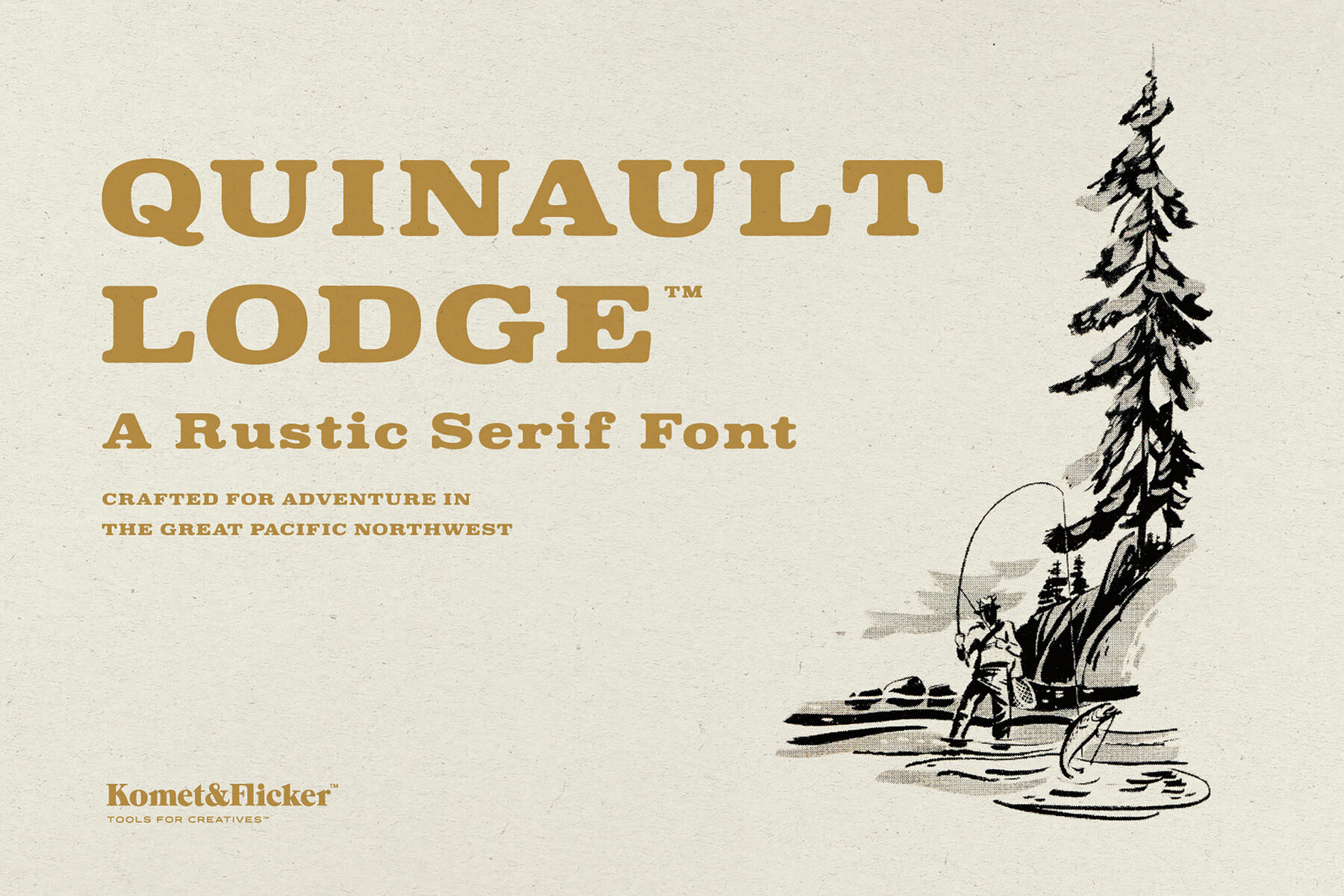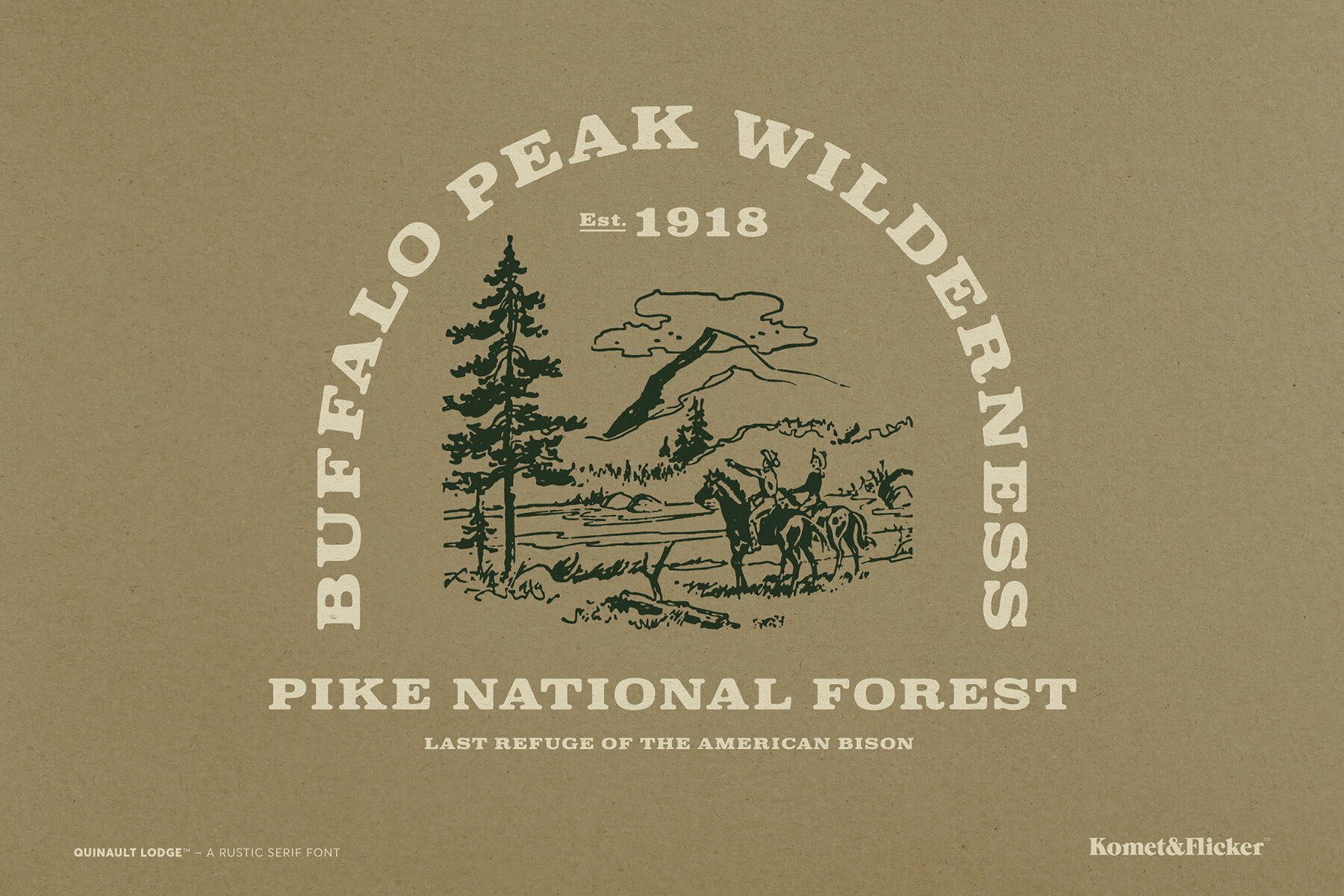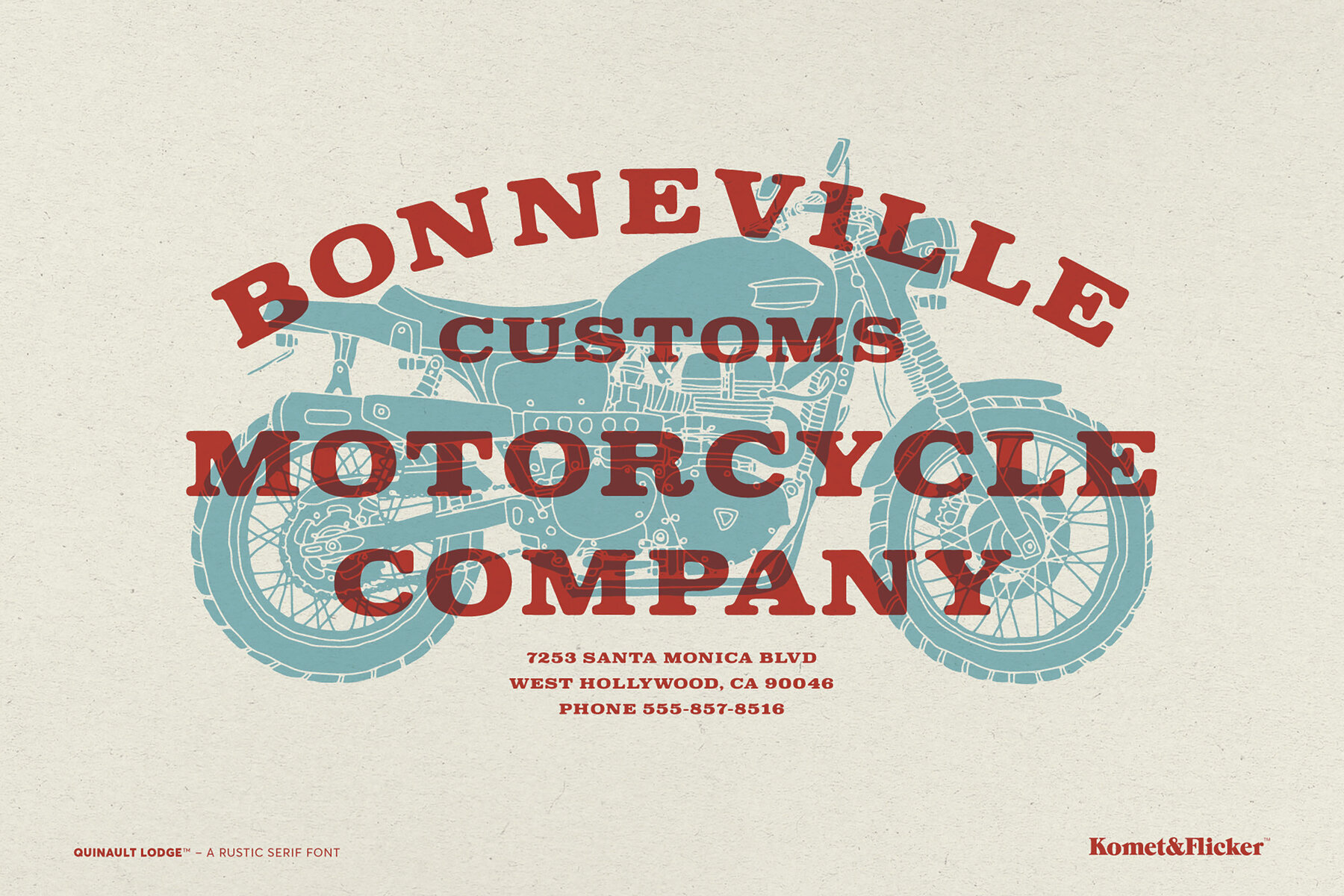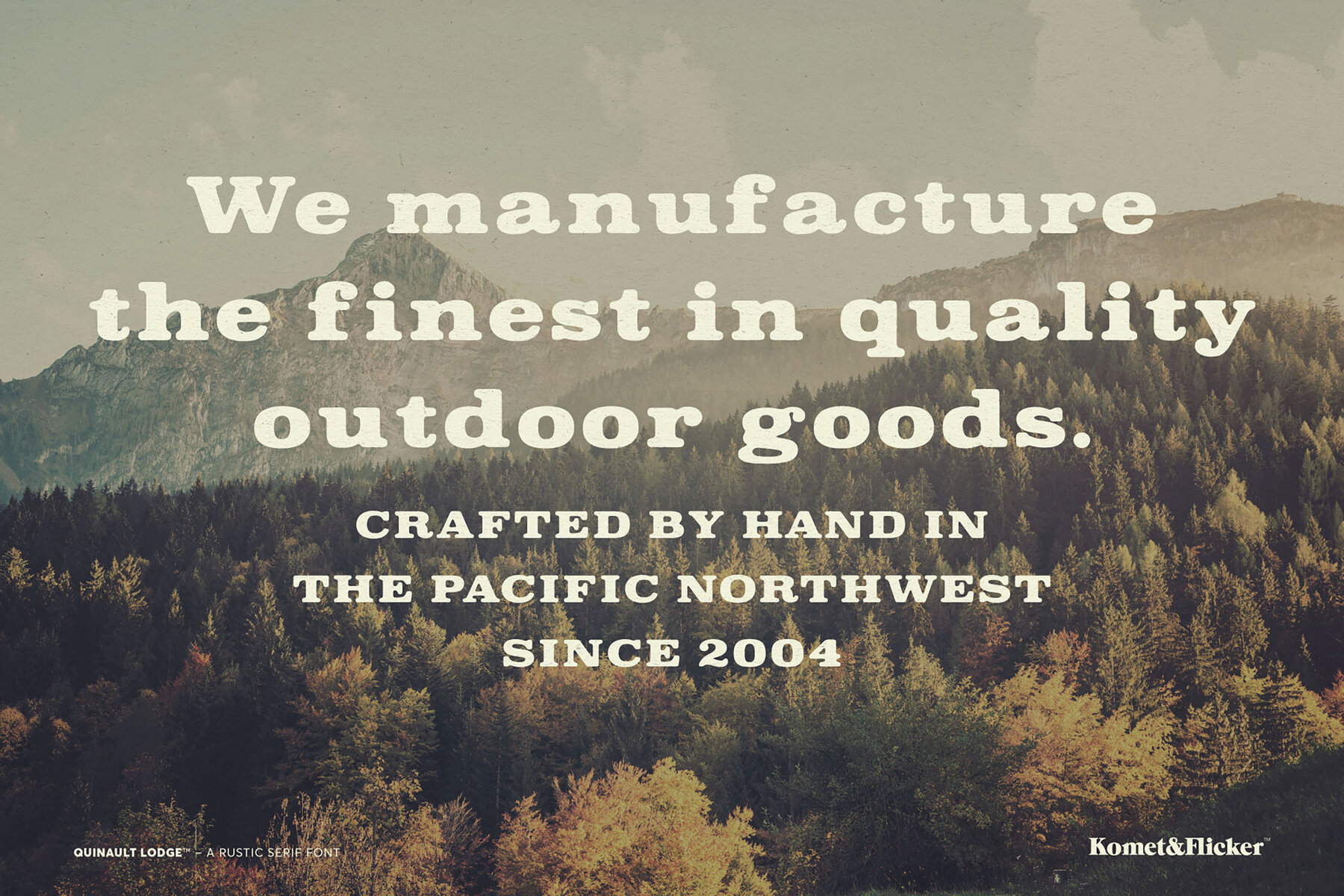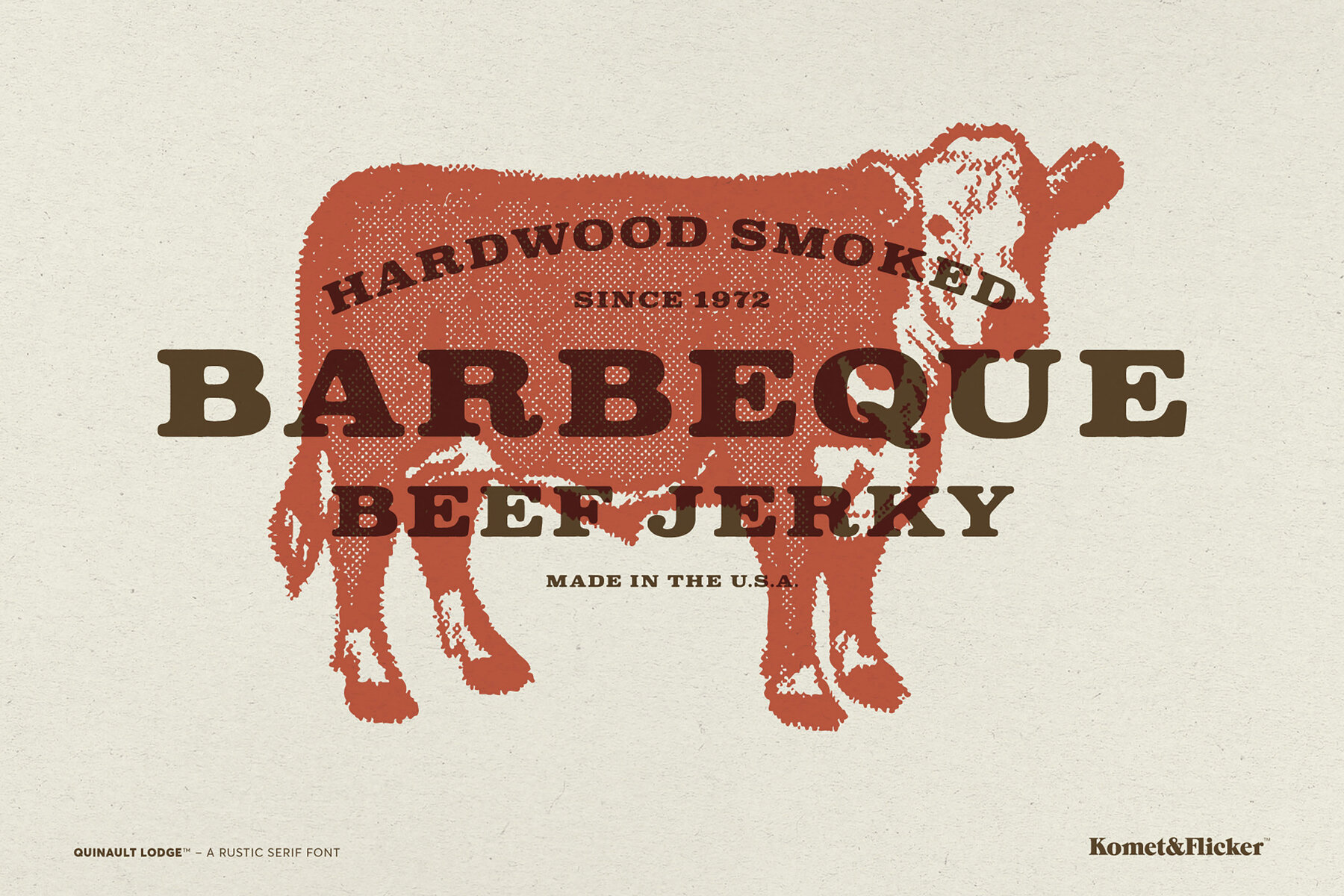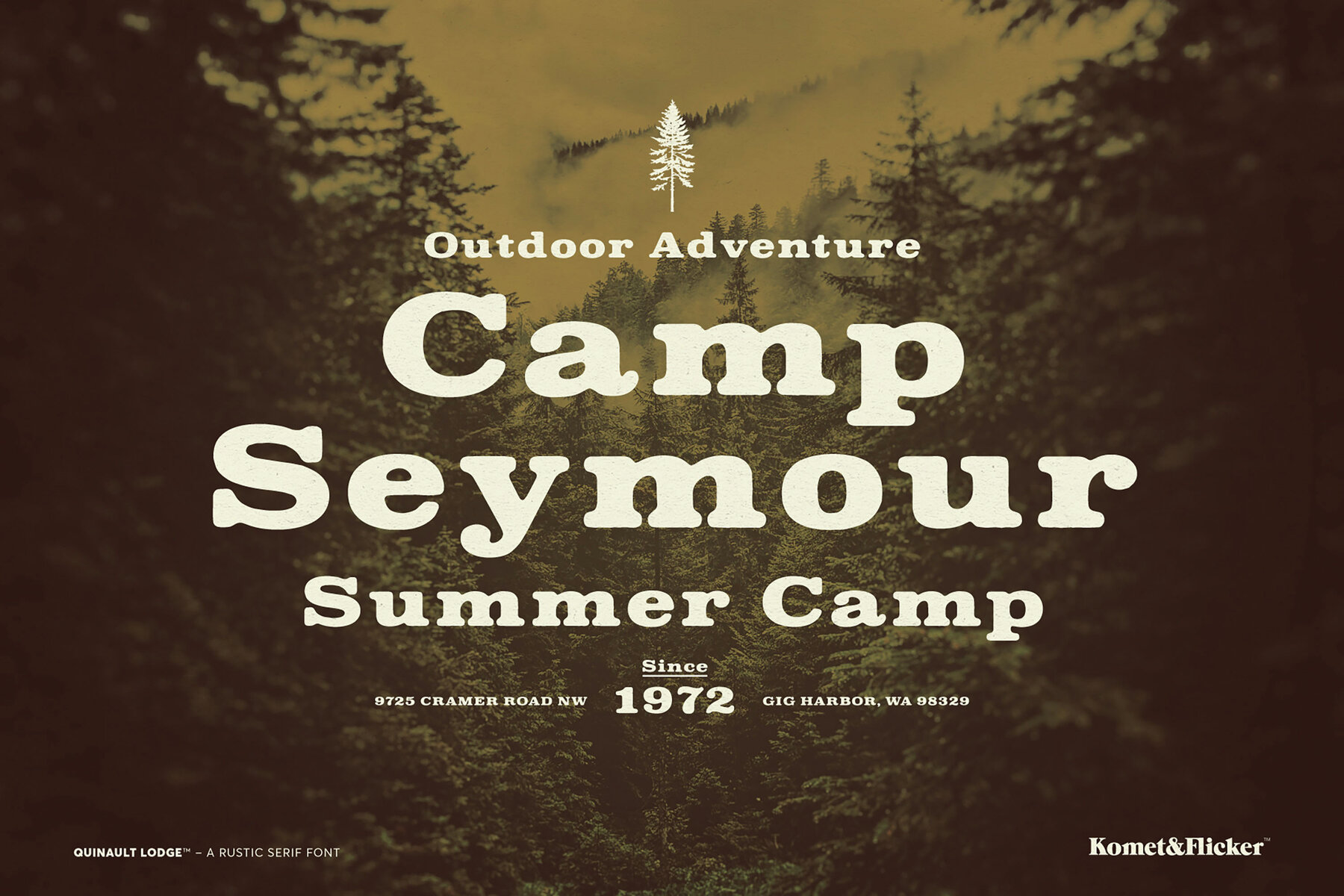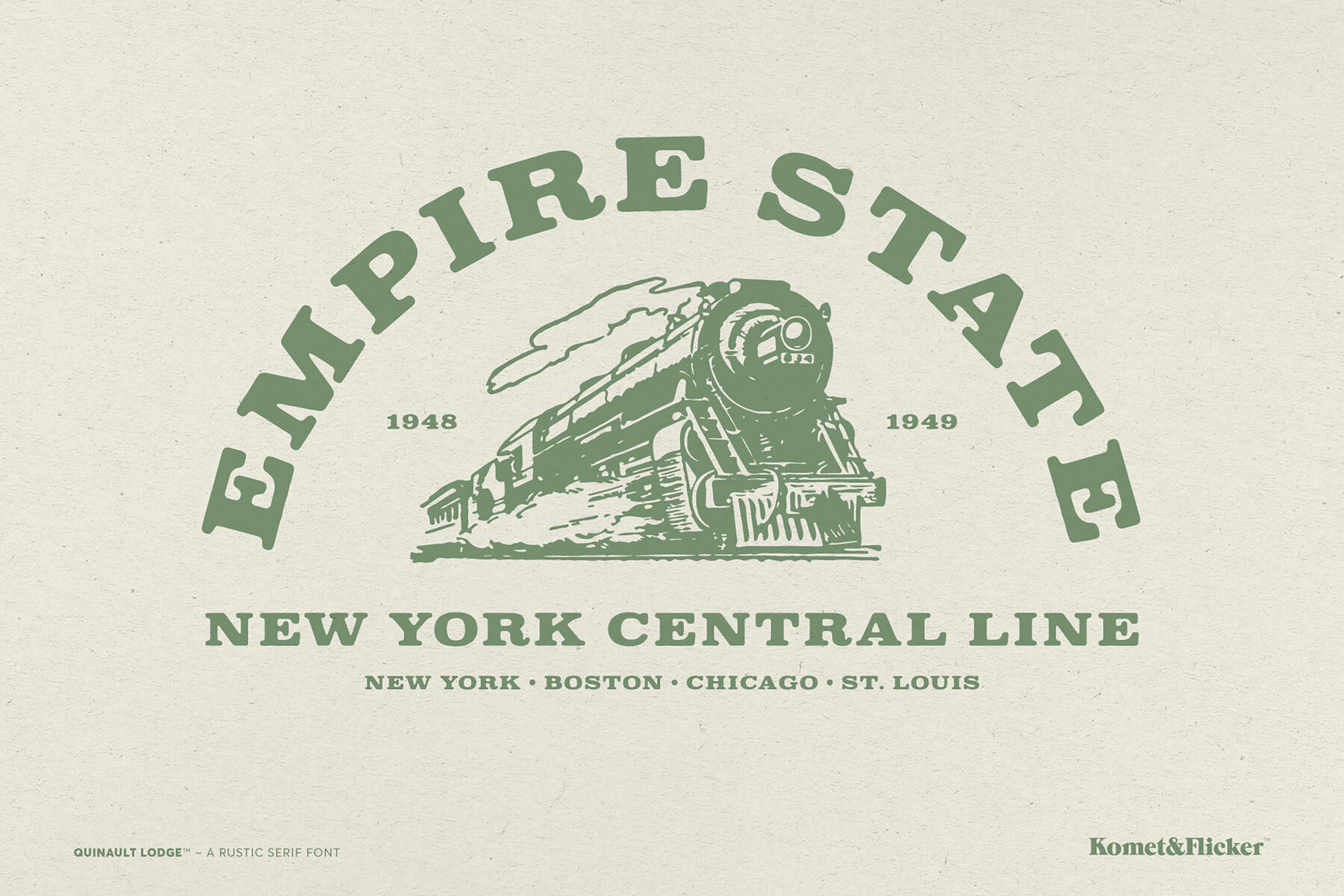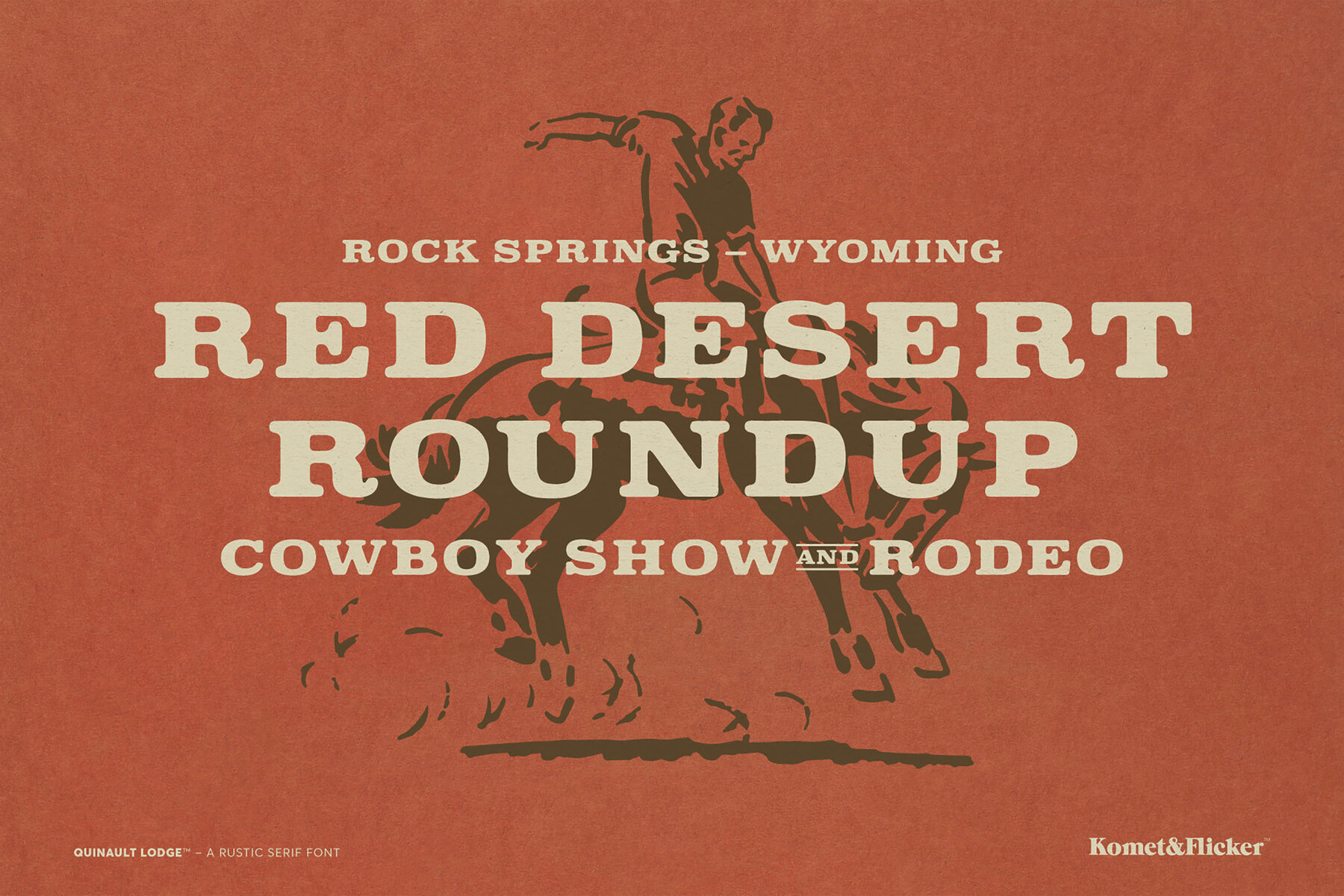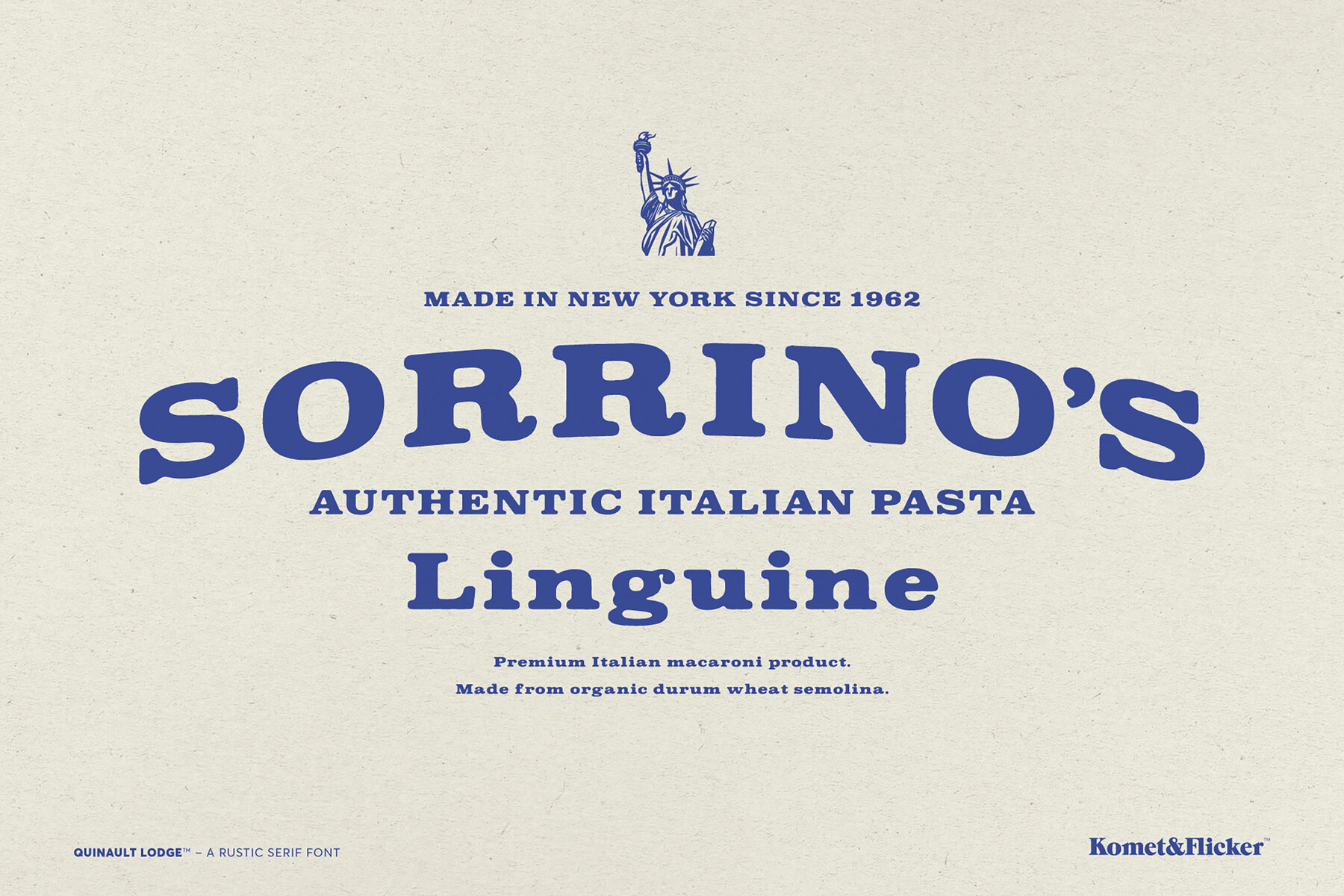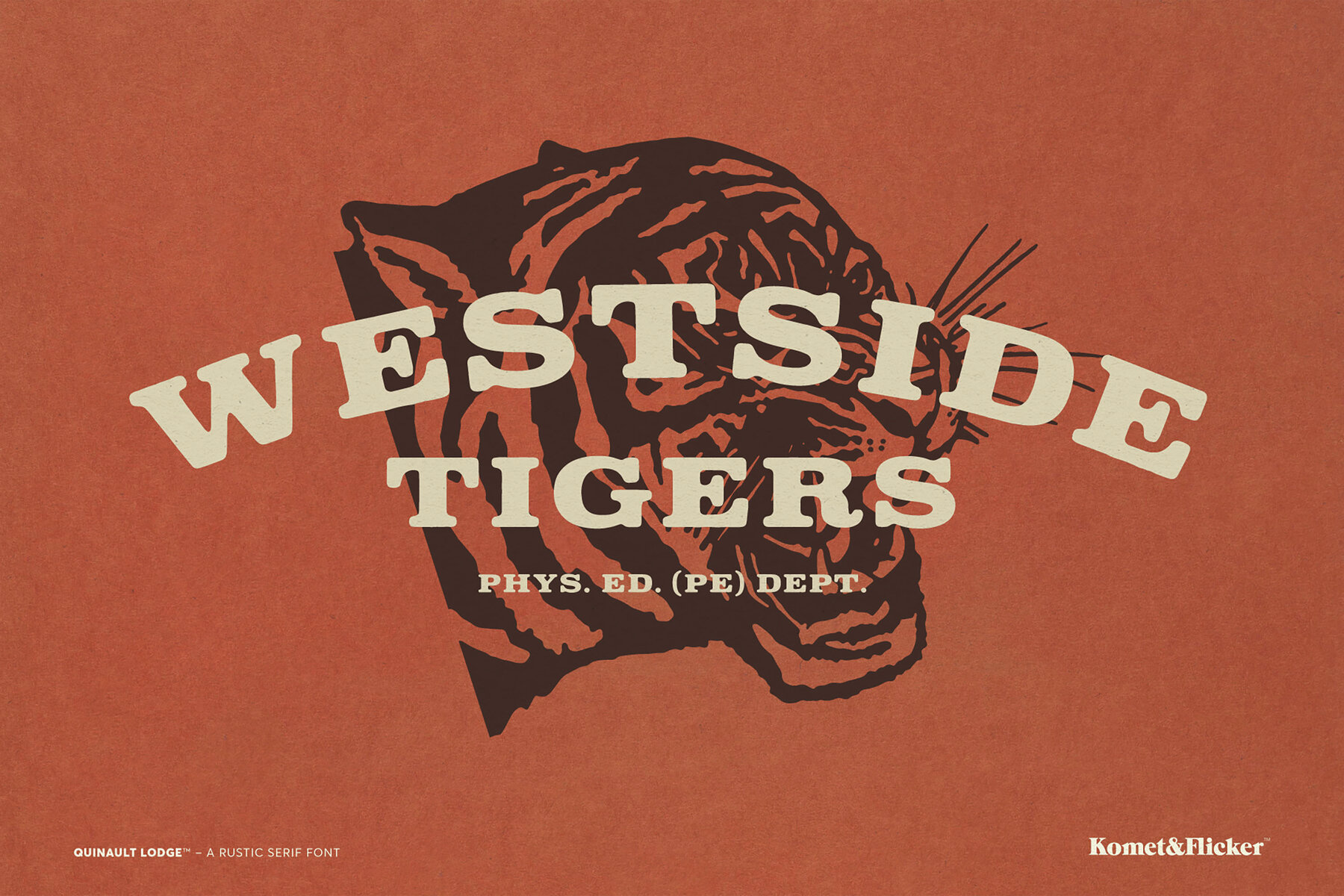
Quinault Lodge Font
Quinault Lodge Rustic
Quinault Lodge is the embodiment of a well-worn serif font that carries an air of vintage authenticity. Its timeless appeal enhances projects looking for that handcrafted touch—be it a retro coffee shop brand, labels for artisanal spirits, vintage-inspired apparel, or outdoor-themed packaging. Every letter in this font offers a rugged personality, ensuring your design stands out with character. Integrating the font's distinctive features is simple, with custom glyphs accessible through the "Glyphs" panel in both Adobe Illustrator and Photoshop. Quinault Lodge's seamless versatility ensures fluid and natural typography for your design projects.Quinault Lodge: A Rustic Serif Typeface